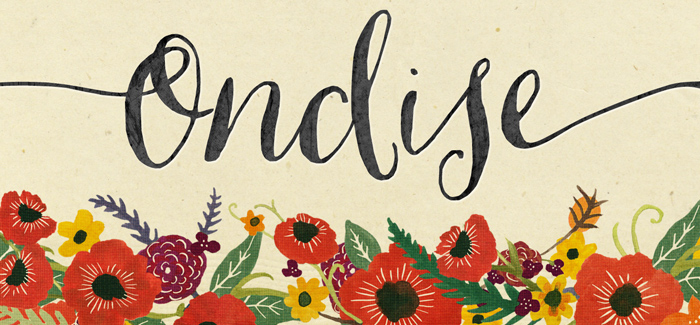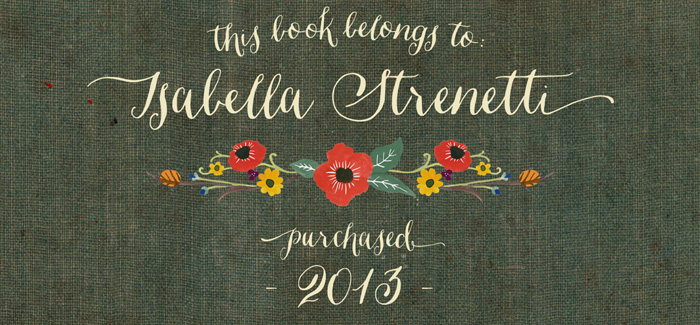
Ondise font
Ondise font is a fresh and jolly calligraphic typeface by Jessica McCarty, Magpie Paper Works following the tradition of its ancestor – the Ahra font. Written with classic pointed pen and ink it keeps the character of traditional lettering and combined with a dancing baseline turns into a charming font with versatile use options and lots of positive emotions. Customizing letters and phrases is very easy with a lot of swashes and alternates and with six different ampersands which often play the main role in some designs.
Creating vintage greeting card, Valentine love message or emotional joyful letter is a real pleasure with Ondise. Check out its nice beautiful promo pictures on Myfonts and you’ll get some ideas, tips & tricks how to use it the best way in your work.